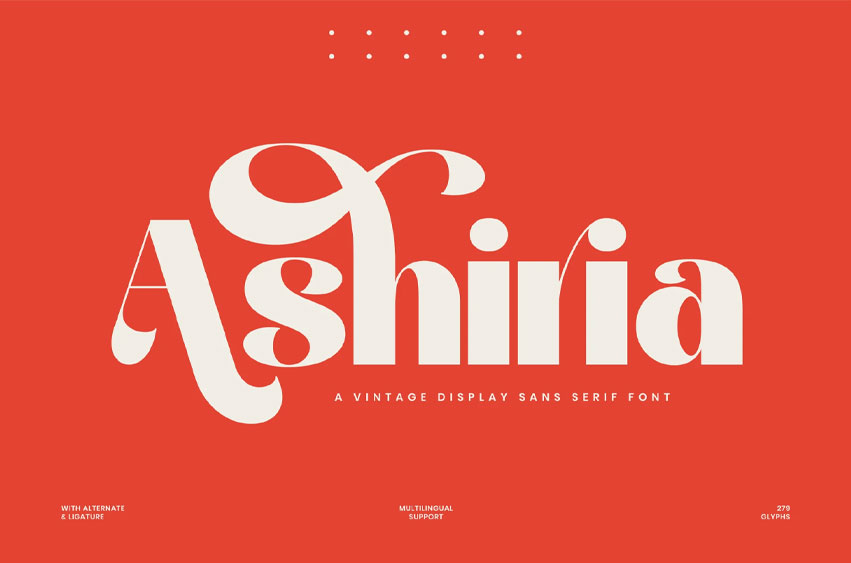
Ashiria Font is a bold display font that blends retro charm with modern luxury. Featuring dramatic curves, stylish contrasts, and distinctive letterforms, Ashiria is designed to make your text stand out. Inspired by vintage editorials and high-end packaging, it brings a touch of timeless sophistication to every design. Whether you’re working on branding, logos, packaging, or editorial layouts, Ashiria gives your project a unique, high-fashion feel that commands attention.
Font Features:
- Uppercase & Lowercase A–Z
- Numbers 0–9
- Punctuation
- Stylish Alternates & Ligatures
- Multilingual Support
Luxury branding, vintage-style packaging, beauty products, editorial headlines, wedding invites, and logo design that needs a stylish, timeless feel.